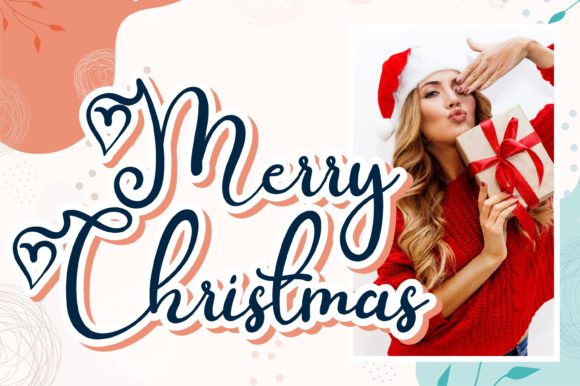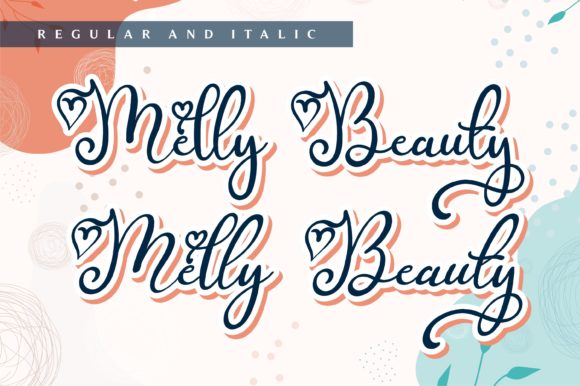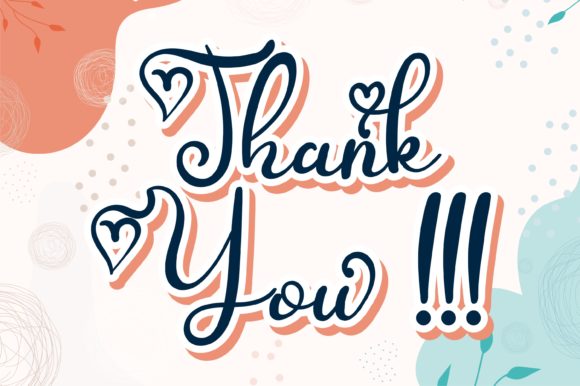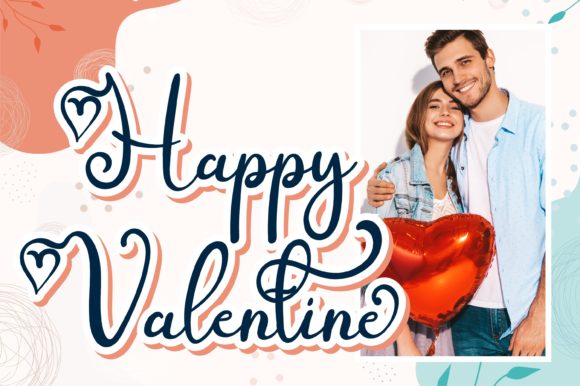
About Beauty Melly Font
Beauty Melly is a delicate and dreamy handwritten font. Its distinct and well rounded letters make this font a true favorite. It is ideal for holiday-themed greeting cards and for any crafting project that requires a romantic touch.